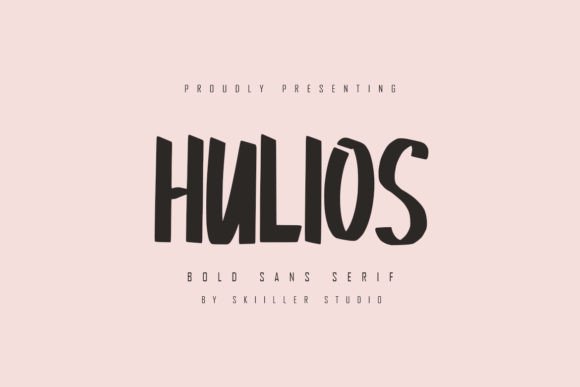
Welcome to the world of Hulios Font, a captivating handwritten display font that exudes elegance and charm. Created by the skilled artisans at Skiiller Studio, Hulios is a visual masterpiece designed to elevate your creative projects to new heights.
With its natural flow and authentic handwritten style, Hulios Font is perfect for adding a touch of personal charm to your work. Whether you're designing wedding invitations, crafting heartfelt greeting cards, or creating logos that exude warmth and approachability, Hulios Font is your perfect companion.
Step into a realm of boundless creativity with Hulios Font, where your ideas take center stage. Its regular baseline creates a sturdy foundation for your text, ensuring that every character stands out with clarity and precision. Unleash your imagination as you explore endless possibilities, from designing eye-catching posters that captivate audiences to creating personalized t-shirts that tell your story.
Hulios Font is a true chameleon in the world of typography, seamlessly adapting to a diverse range of projects. It's the perfect choice for clothing designs that demand a touch of sophistication, book titles that yearn for a hint of intrigue, and movie posters that seek to transport viewers into magical realms. Its versatility extends to branding and logos, where it lends a timeless and memorable identity to your business.
With Hulios Font, you'll discover a font that transcends ordinary boundaries and becomes an integral part of your creative journey. Its carefully crafted characters dance across the page, captivating readers and viewers alike. Prepare to be mesmerized as your words come alive, infused with the warmth and authenticity of Hulios Font.
Embrace the boundless potential of Hulios Font and watch your creative dreams flourish. Let its natural beauty and elegant charm guide you as you forge a path of originality and distinction. Your projects will radiate with a captivating allure that leaves an indelible mark on the hearts of those who behold them.